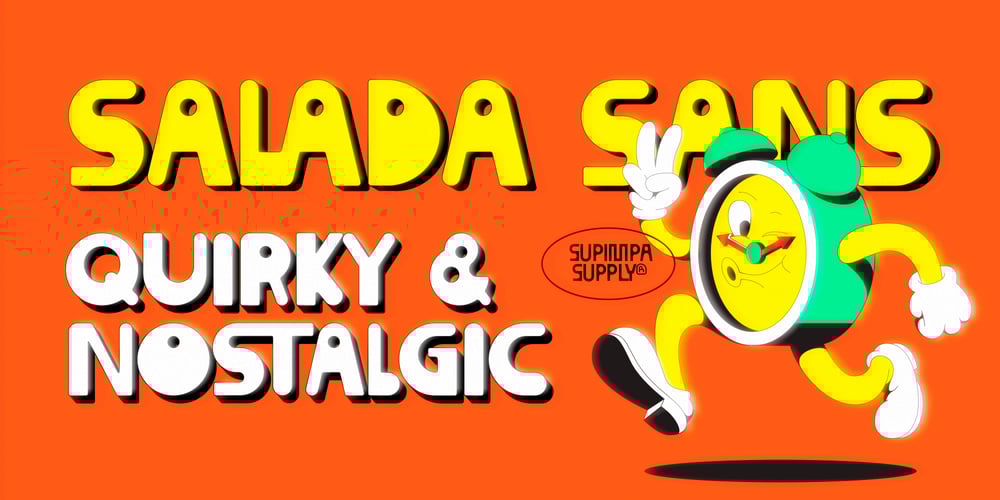
Salada Sans Font Family was designed by Matheus Lopes and published by Supimpa. Salada Sans contains 1 styles and family package options. Salada Sans is a quirk and nostalgic font, inspired by a vintage japanese magazine logo, entitled “Film”.The typeface comes with a whole lot of variants and pairs, perfect for custom lettering and poster design.